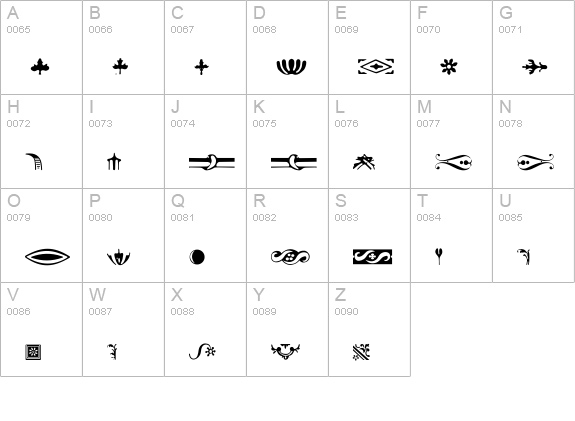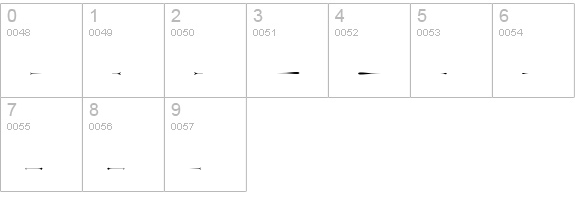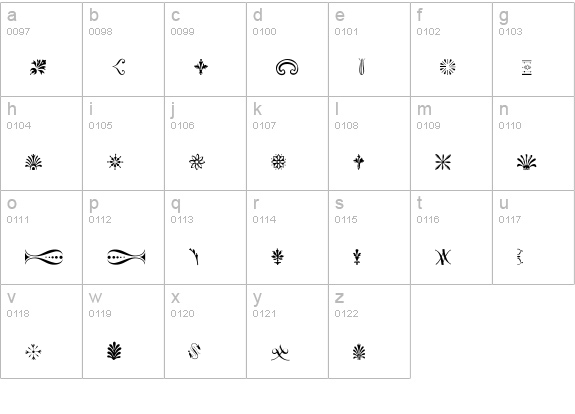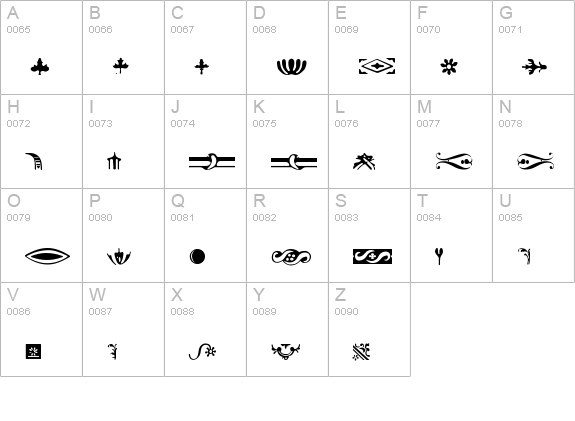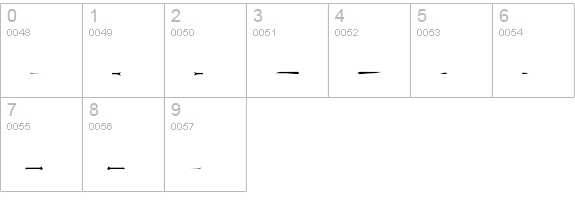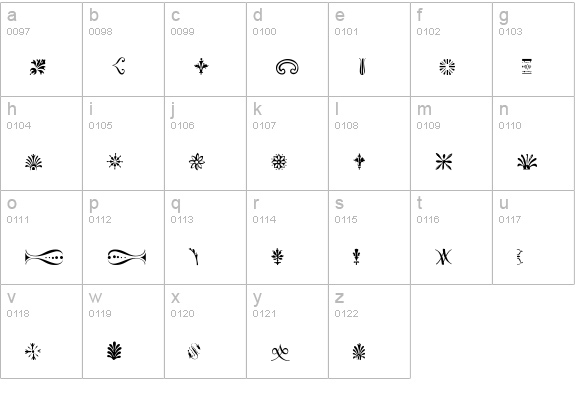
BodoniClassicOrnaments Font Details
BodoniClassicOrnaments font is a stunning collection of ornamental designs inspired by the timeless elegance of the Bodoni typeface. These intricate ornaments feature delicate swirls, floral motifs, and decorative elements that add a touch of sophistication to any project. Whether you're designing invitations, packaging, or logos, BodoniClassicOrnaments font will elevate your creations to a new level of refinement. The best part is that BodoniClassicOrnaments font is completely free to download at FontsMarket.com. Now you can access this exquisite collection of ornaments without any cost, making it the perfect choice for designers on a budget. Don't miss out on the opportunity to enhance your designs with the exquisite details of BodoniClassicOrnaments font. Download it today and add a touch of luxury to your projects.